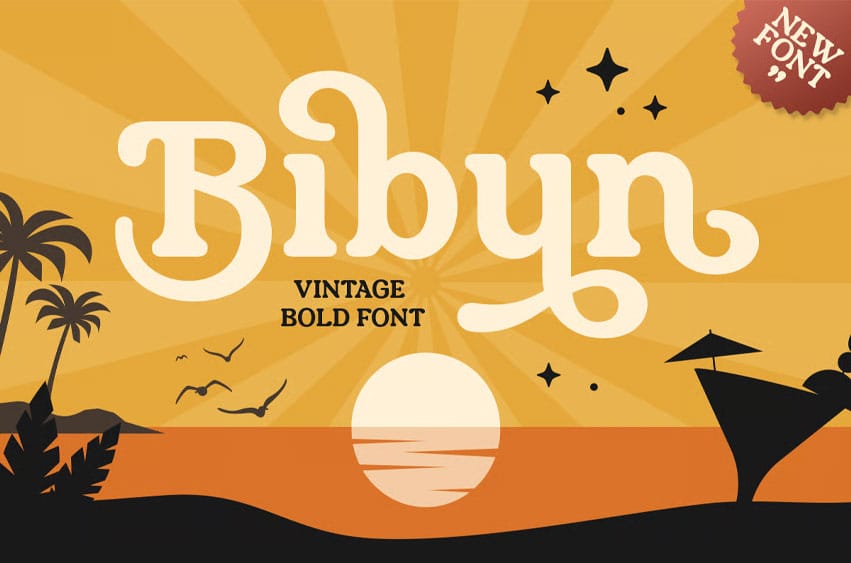
Bibun Font is a vintage bold font that brings a striking, retro-inspired aesthetic to your branding and design projects. Perfect for creating powerful logos, vintage posters, and timeless branding, Bibun blends bold, eye-catching letterforms with a classic, nostalgic flair.
Whether you’re working on a retro logo, a creative poster design, or vintage packaging, Bibun adds an unmistakable character to your project. Its unique blend of boldness and vintage charm makes it the perfect choice for businesses and creatives seeking to make a statement with a nostalgic yet fresh design.
Bibun – Vintage Bold Font Features
- Bold, vintage-inspired letterforms with a modern twist
- Ideal for logos, branding, posters, and creative design
- Includes uppercase, lowercase, numerals, and punctuation
- Strong, eye-catching design with a timeless appeal
- OpenType features for advanced typographic styling
Bring timeless boldness to your designs with Bibun – the ultimate vintage font for strong, creative branding.